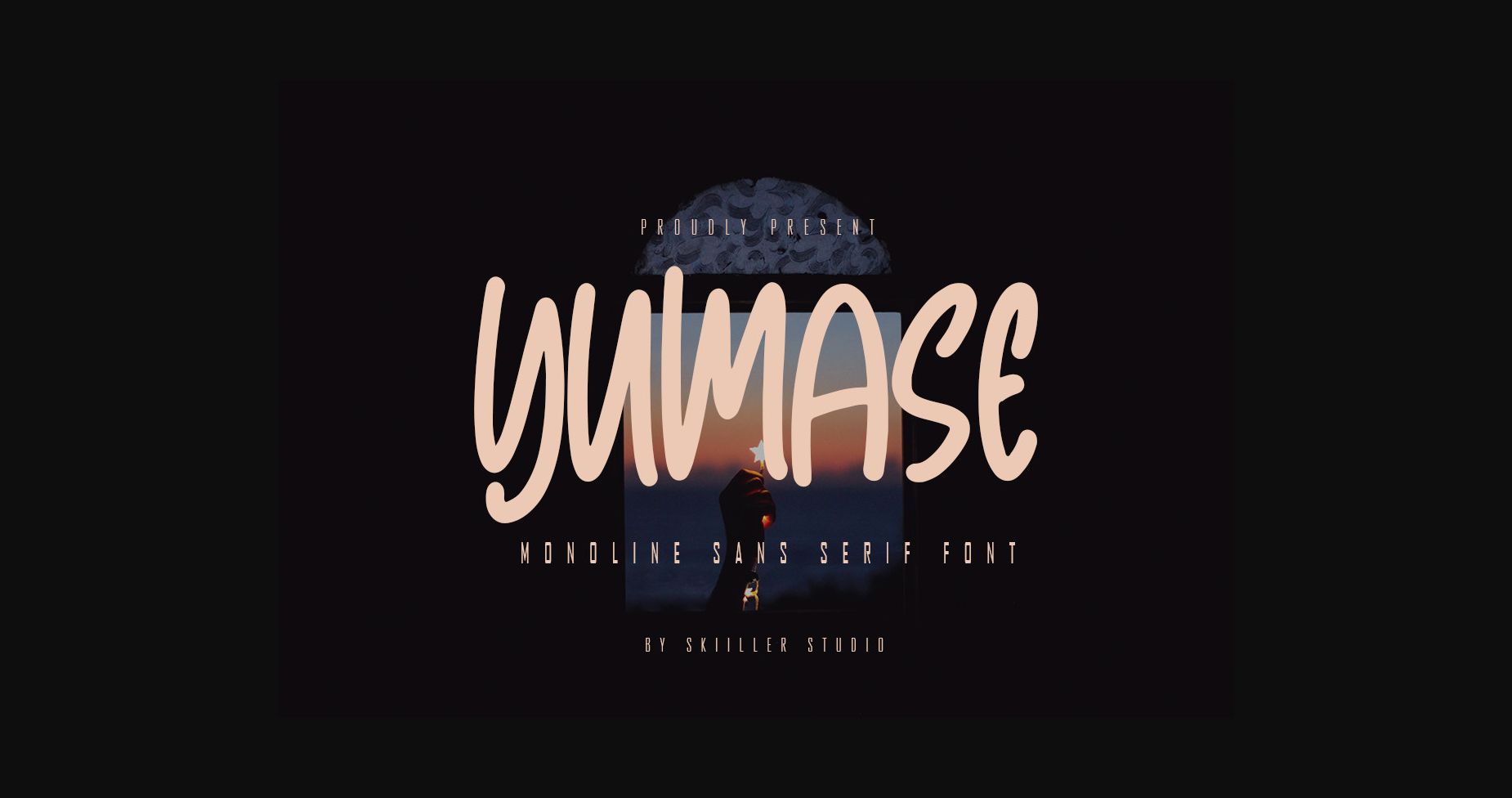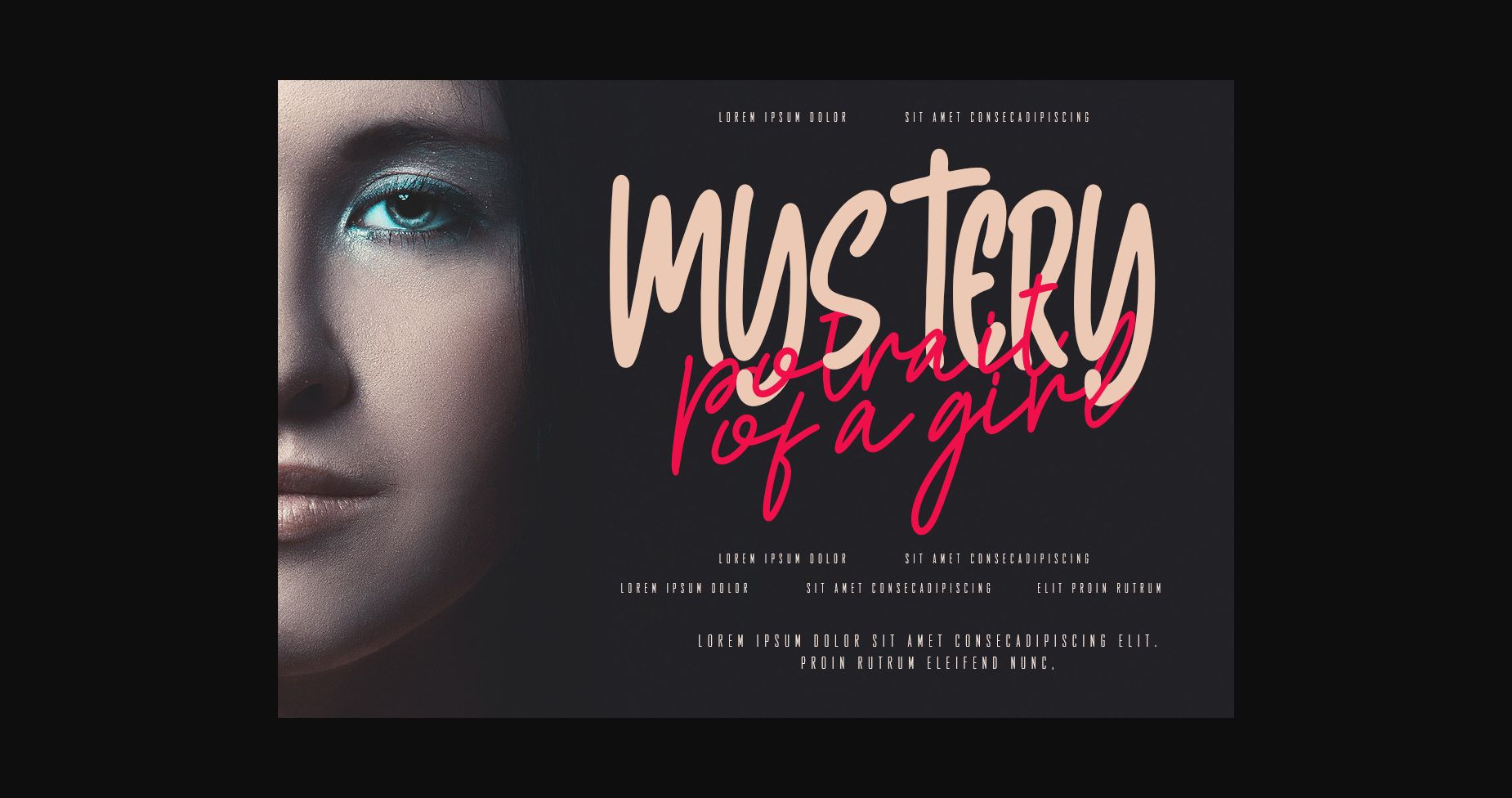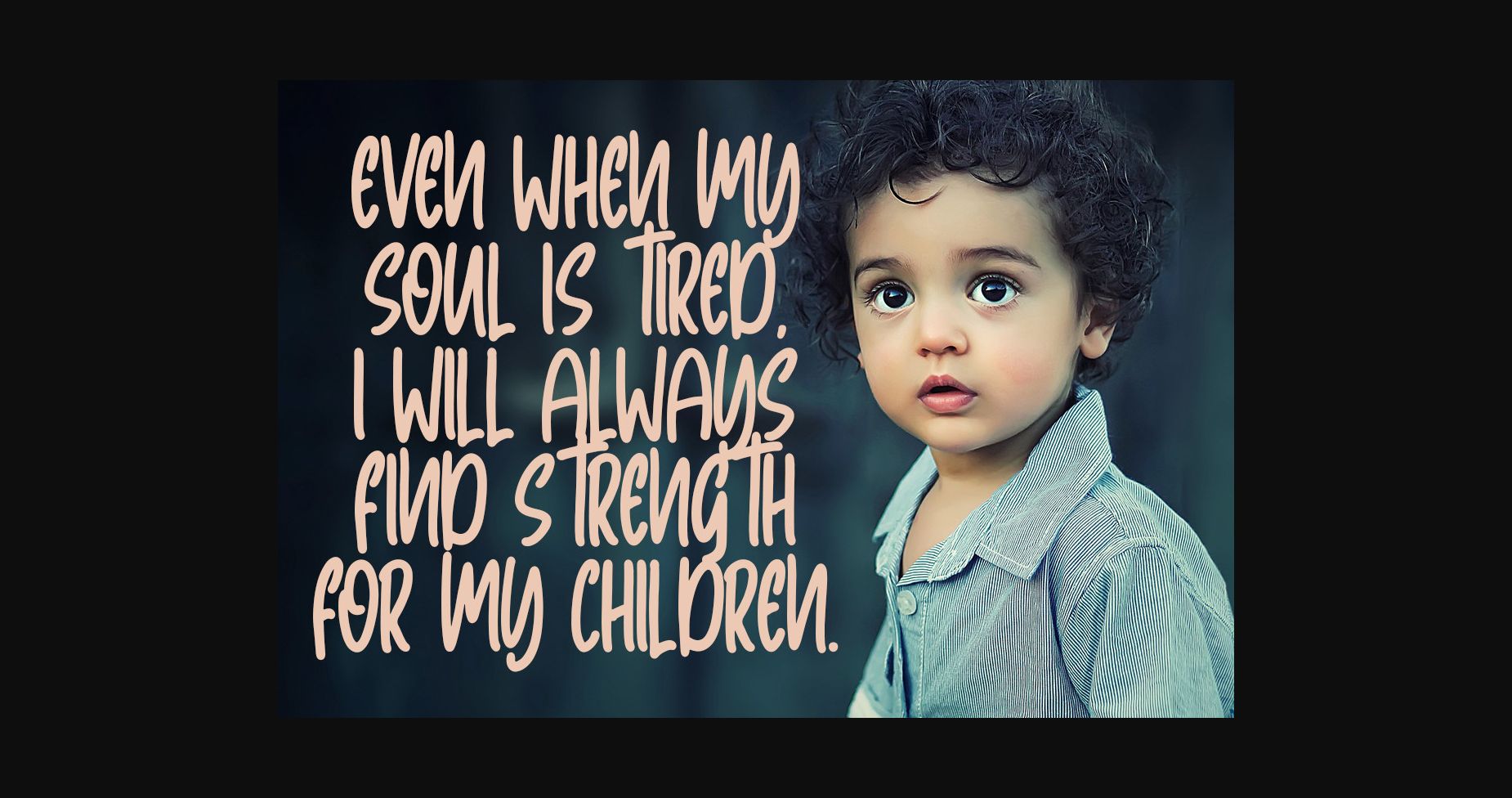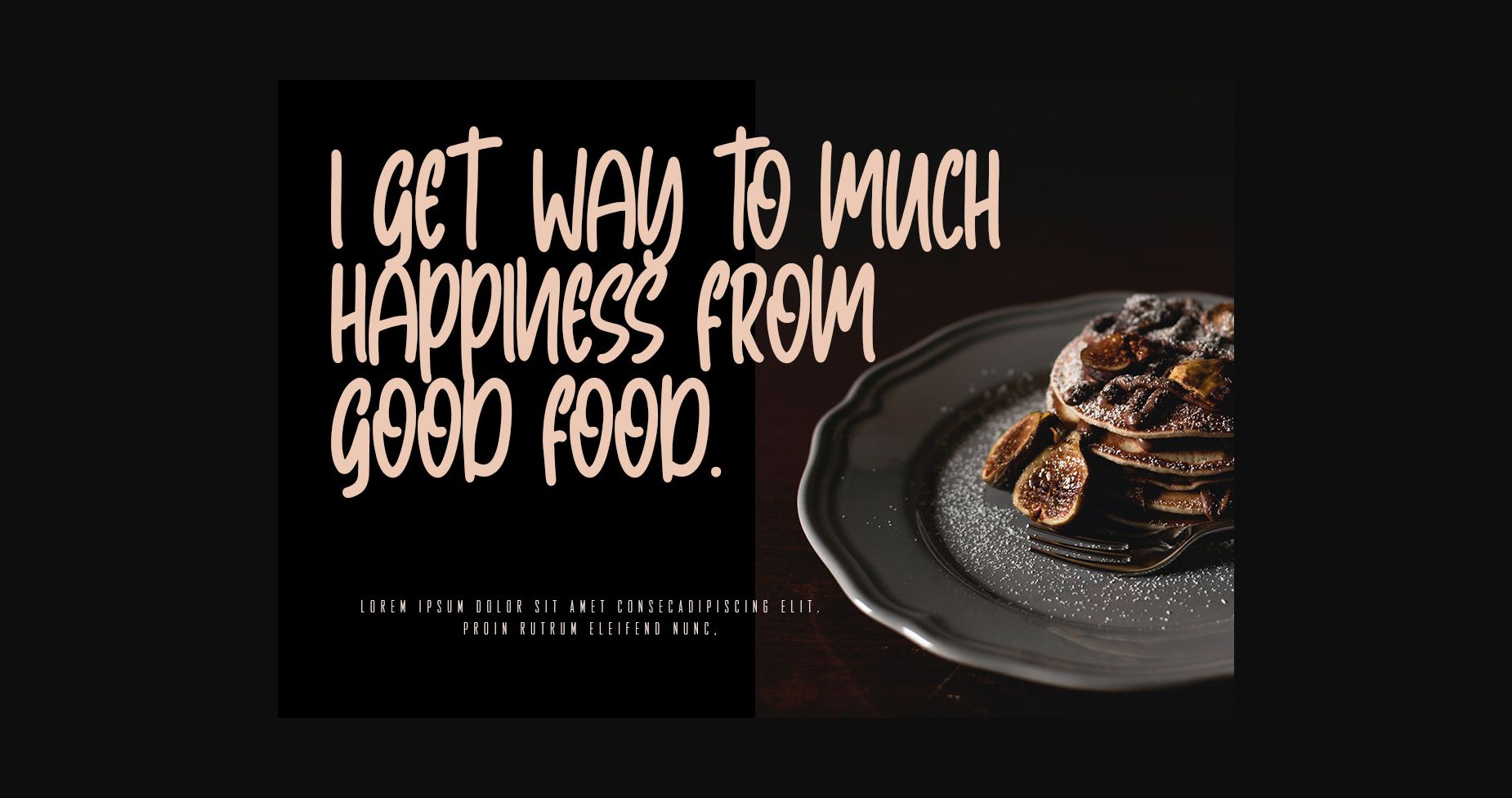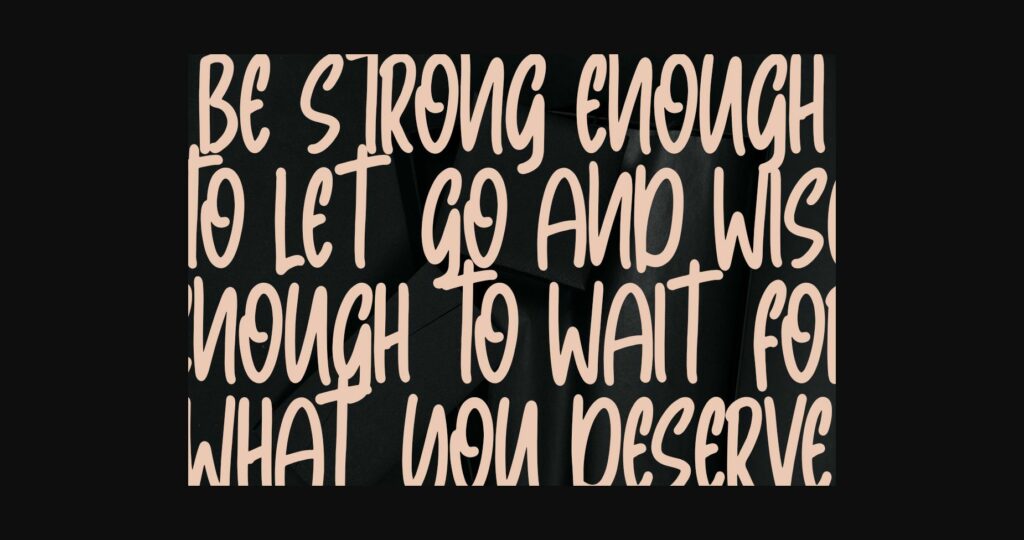
Yumase Font
About Yumase Font
Yumase is a serif font that looks beautiful on a variety of designs requiring a personalized style, such as wedding invitations, thank you cards, weddings, greeting cards, logos, and so on.